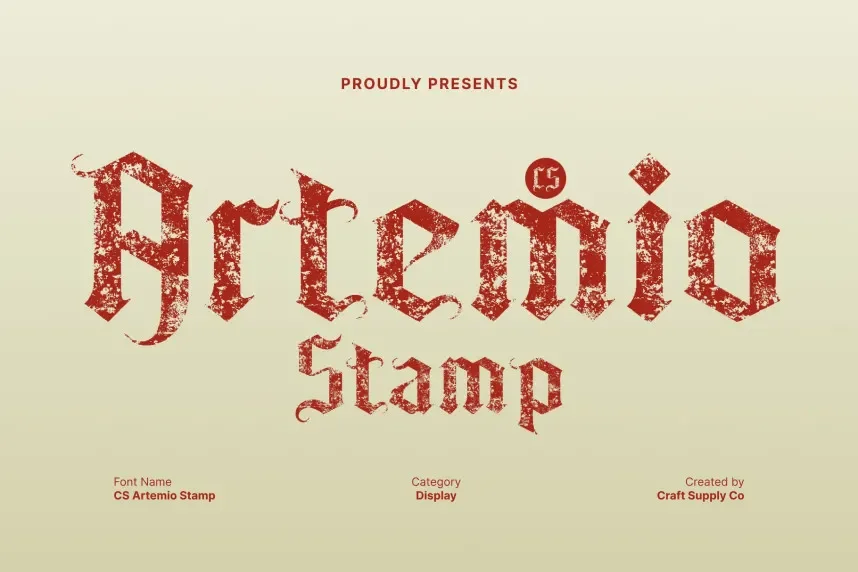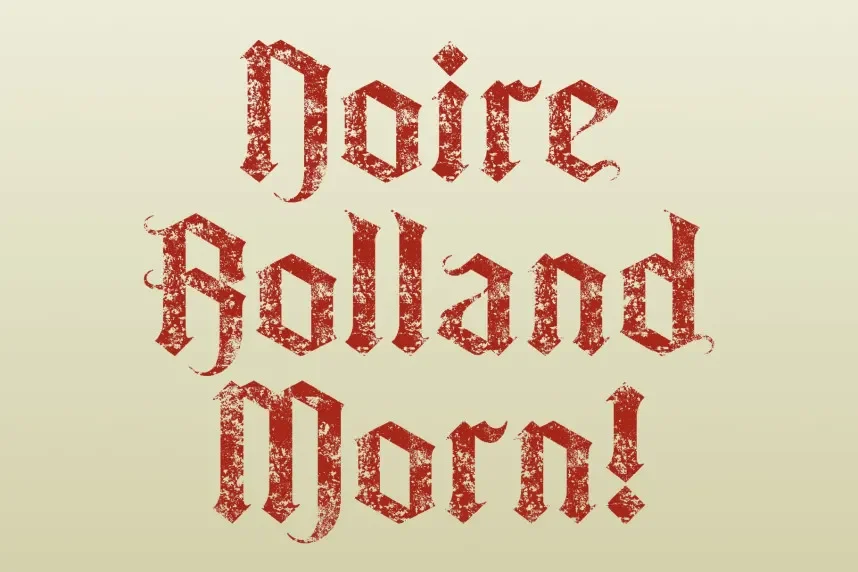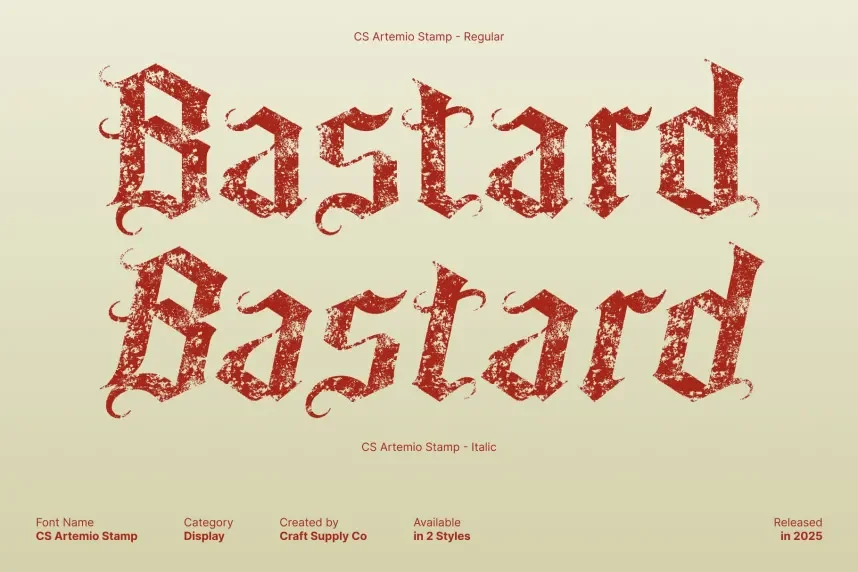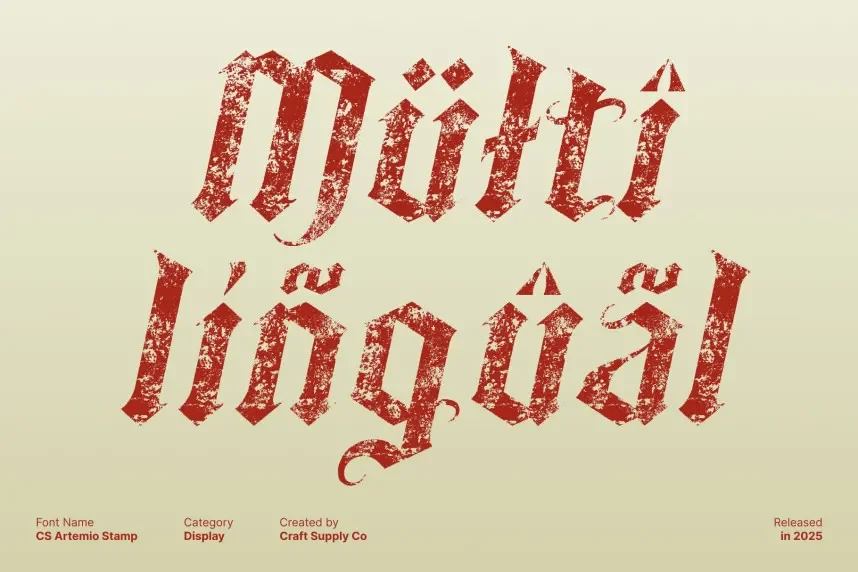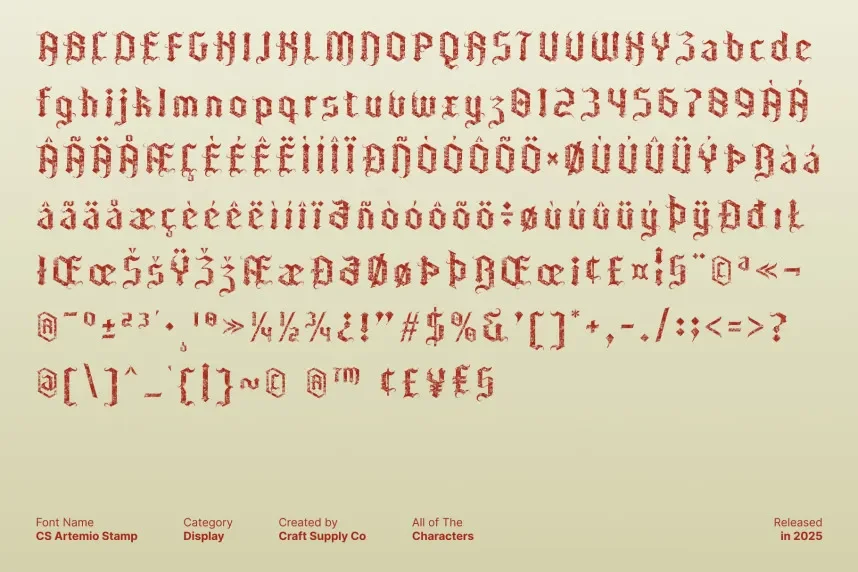
CS Artemio Stamp Font addresses the need for a distressed, vintage-style font that adds personality and character to designs. It’s perfect for projects that require a worn, industrial look while maintaining readability.
CS Artemio is a stamp-style font featuring rough, uneven edges and irregular letterforms. The distressed texture gives the font a nostalgic, old-school appearance, making it ideal for designs that want to evoke a sense of history or craftsmanship.